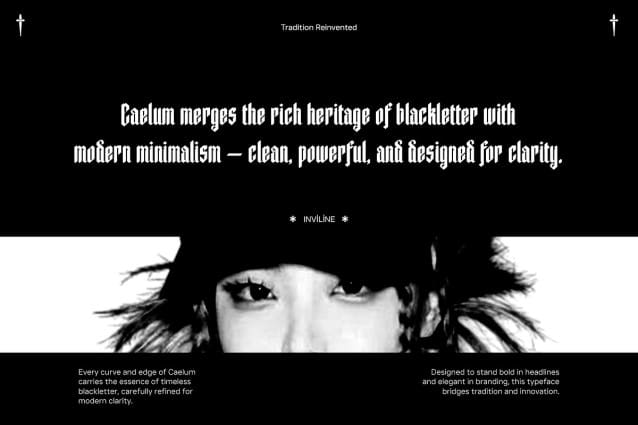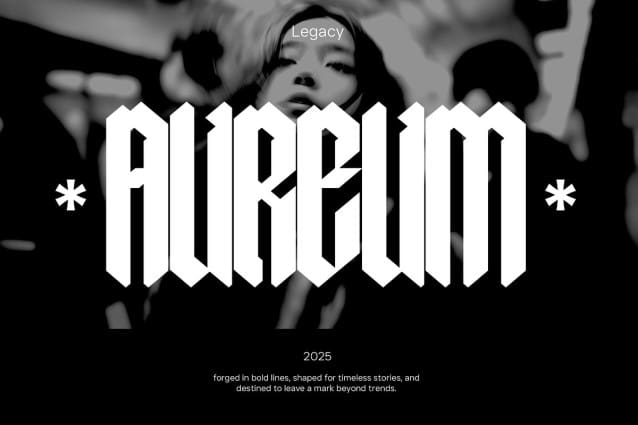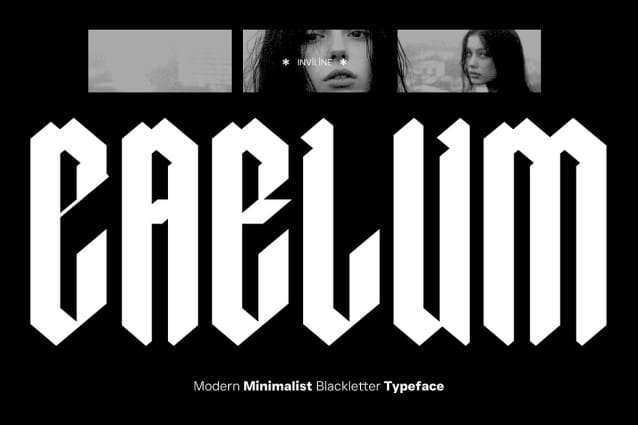
Caelum Font
Caelum Font is a modern blackletter typeface designed with a minimalist twist. Combining the bold spirit of gothic calligraphy with clean, geometric cuts, Caelum delivers a sharp and futuristic edge while maintaining strong legibility. Each letterform is crafted to evoke power, clarity, and tension—perfectly suited for projects that demand attitude, bold identity, or an avant-garde touch.
Whether you’re designing album covers, fashion branding, experimental posters, or editorial titles, Caelum helps you stand out with confidence.